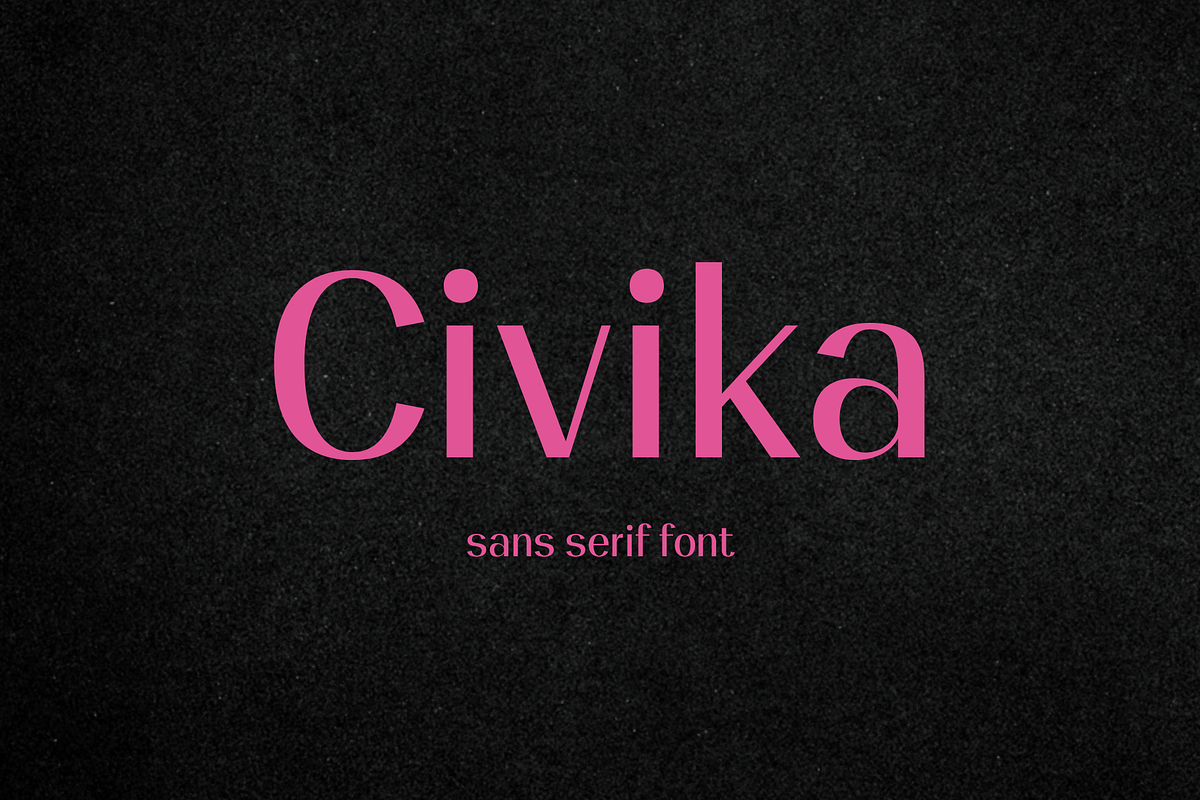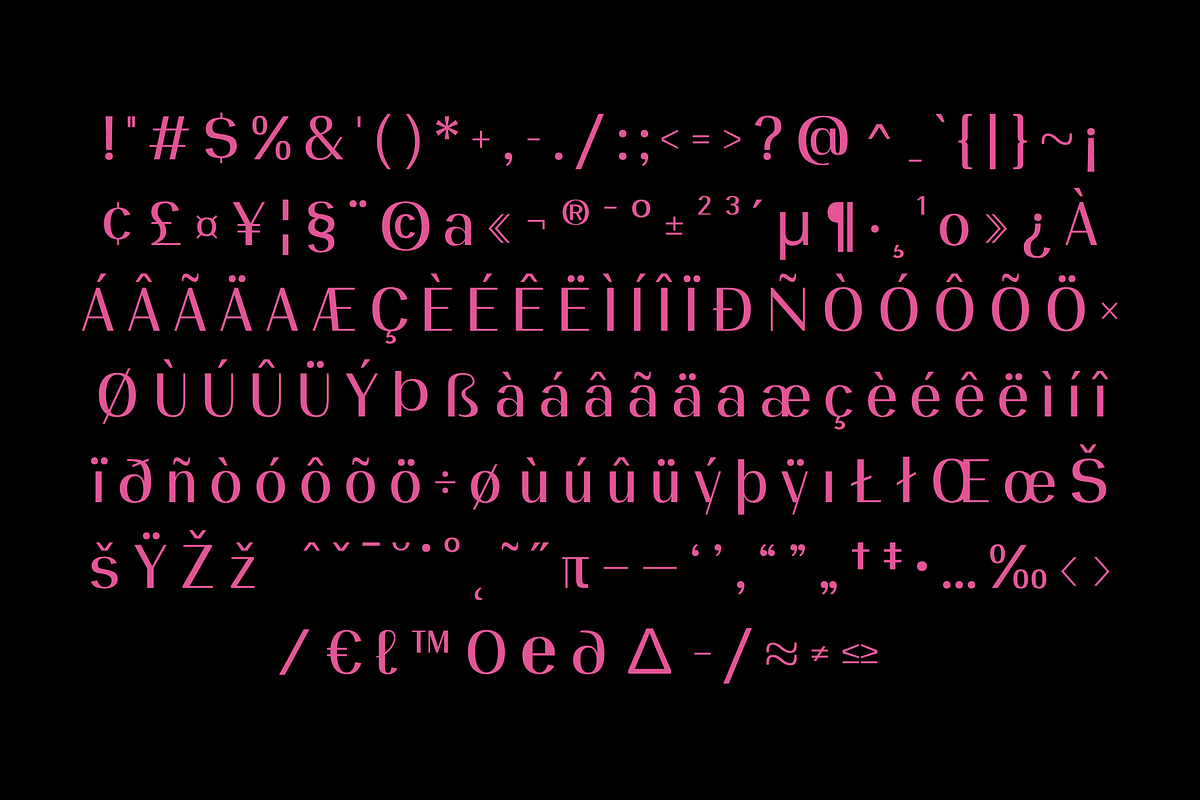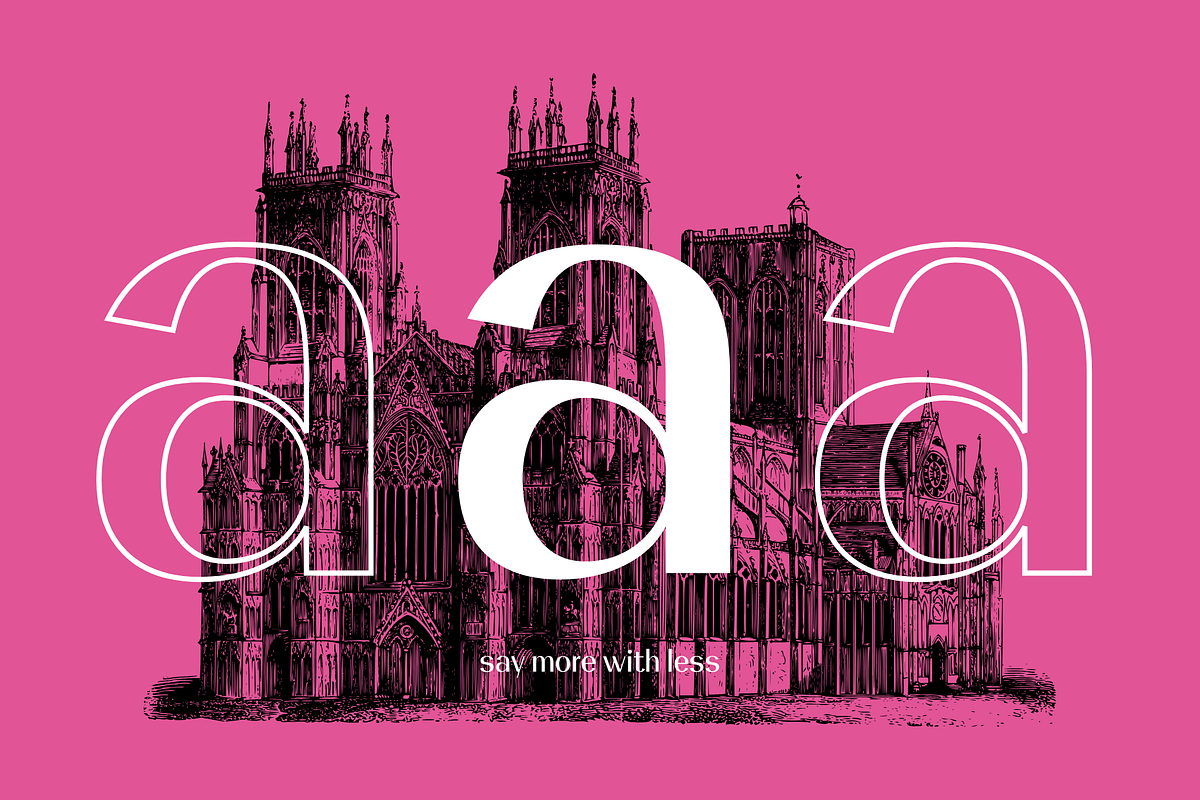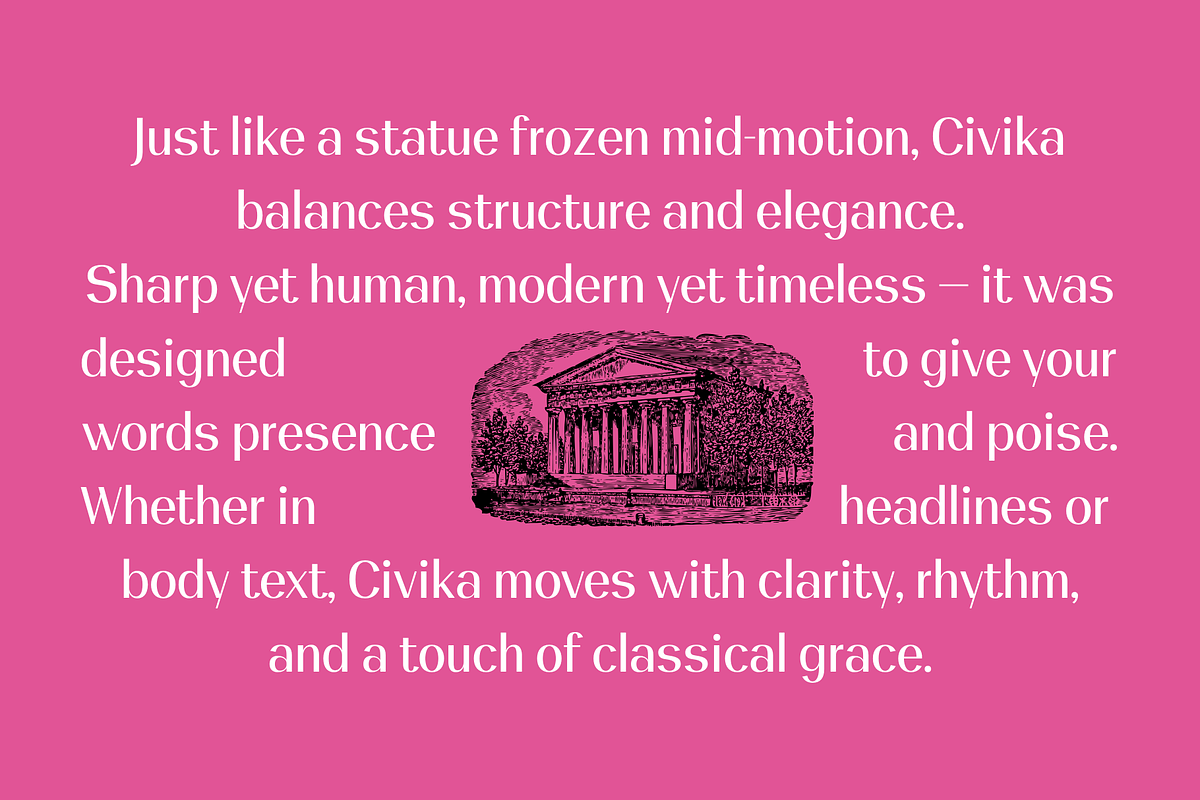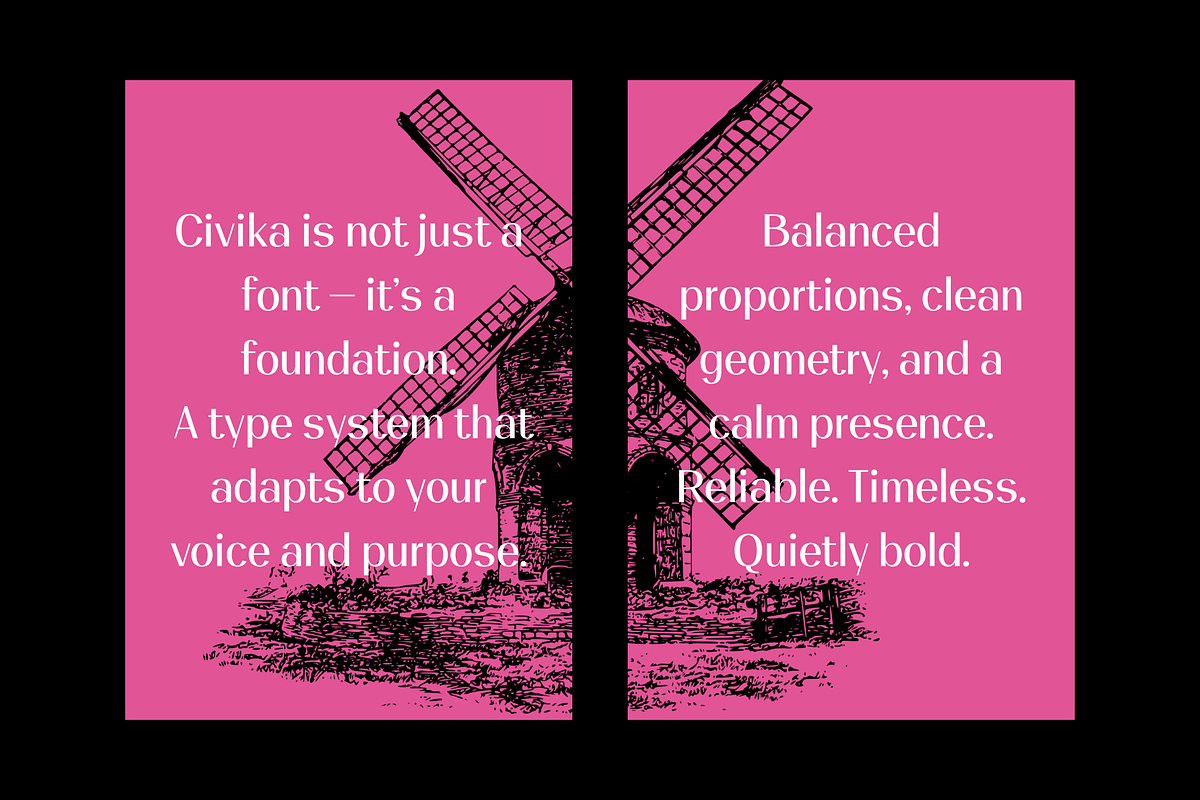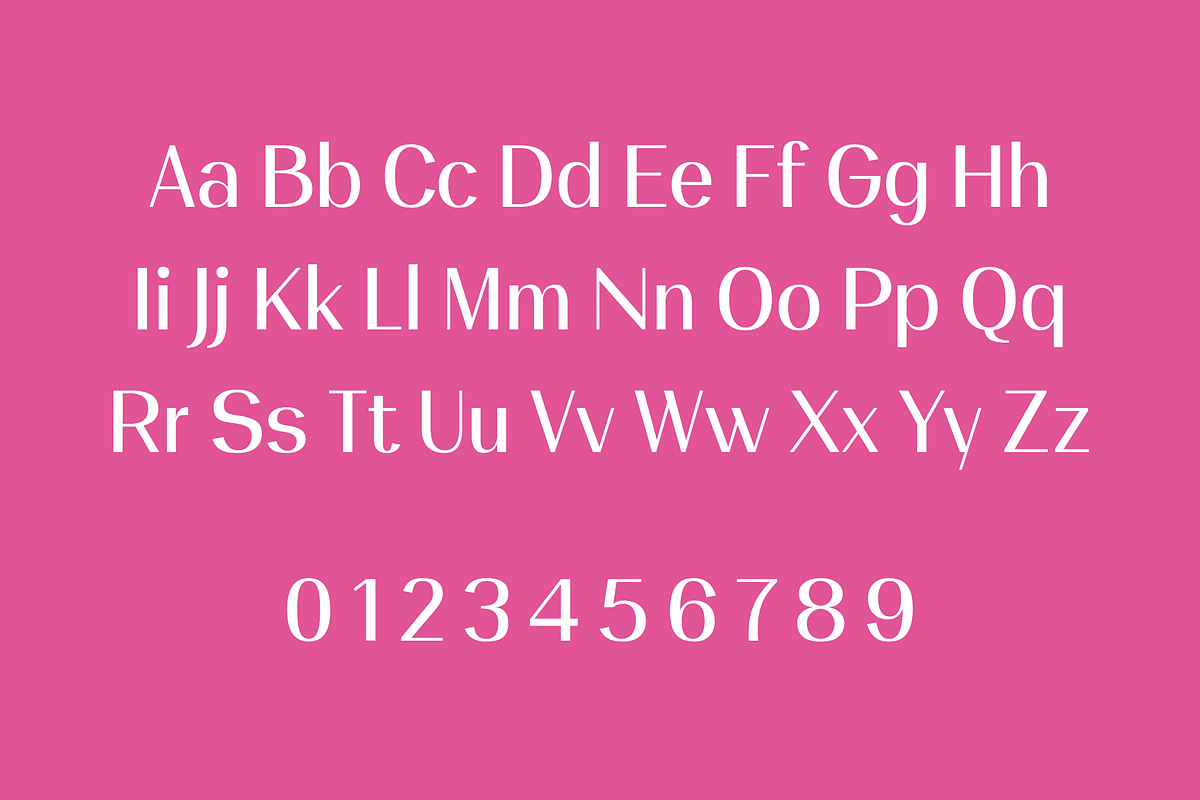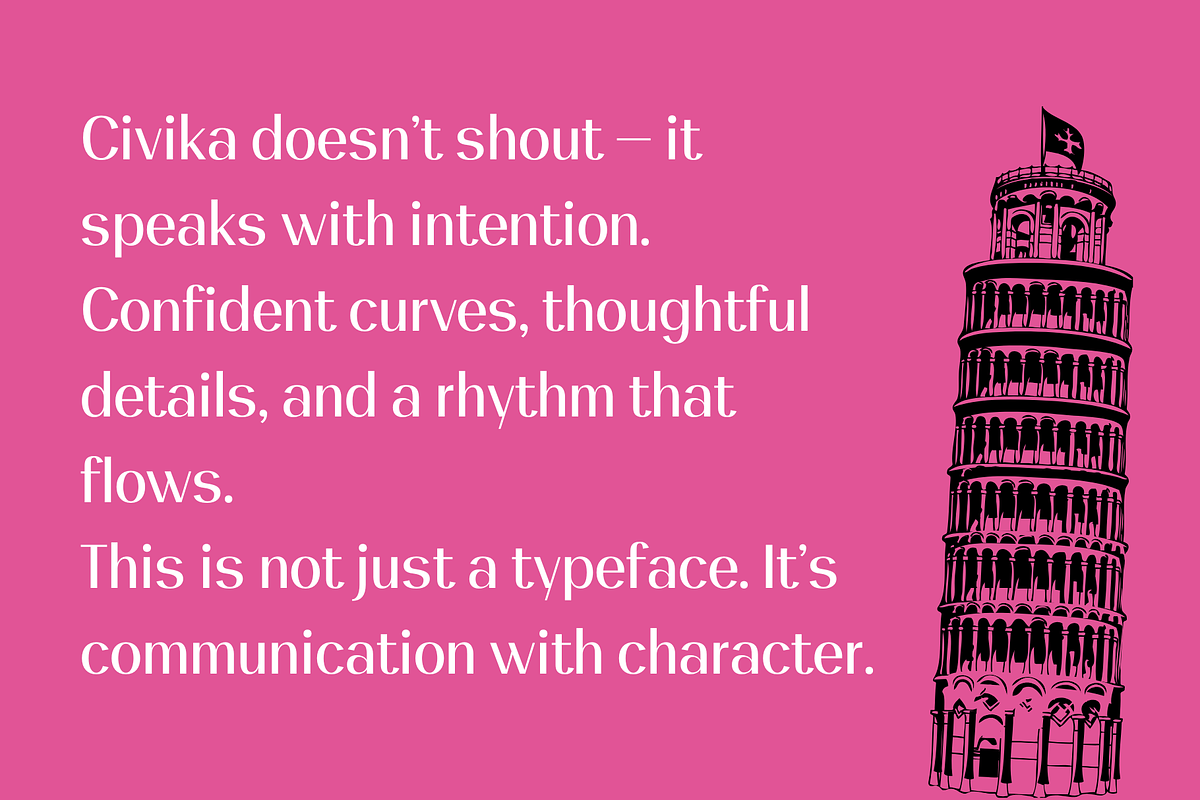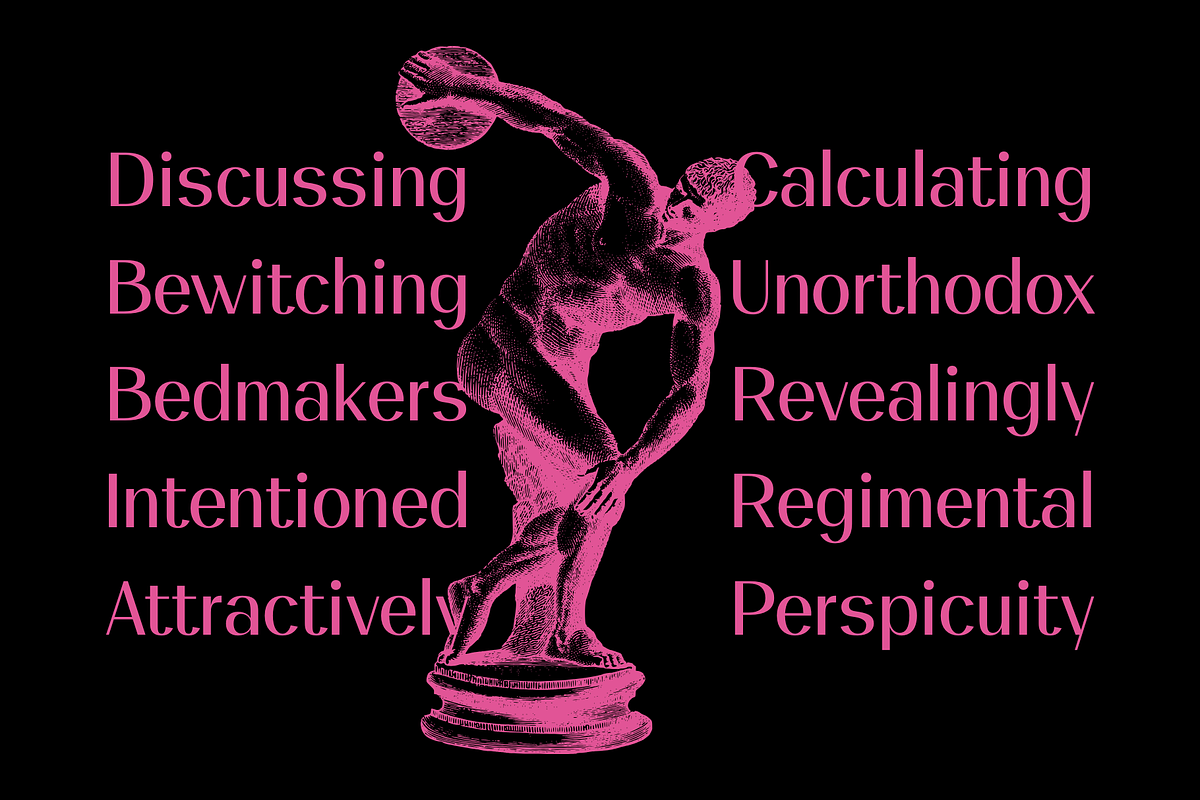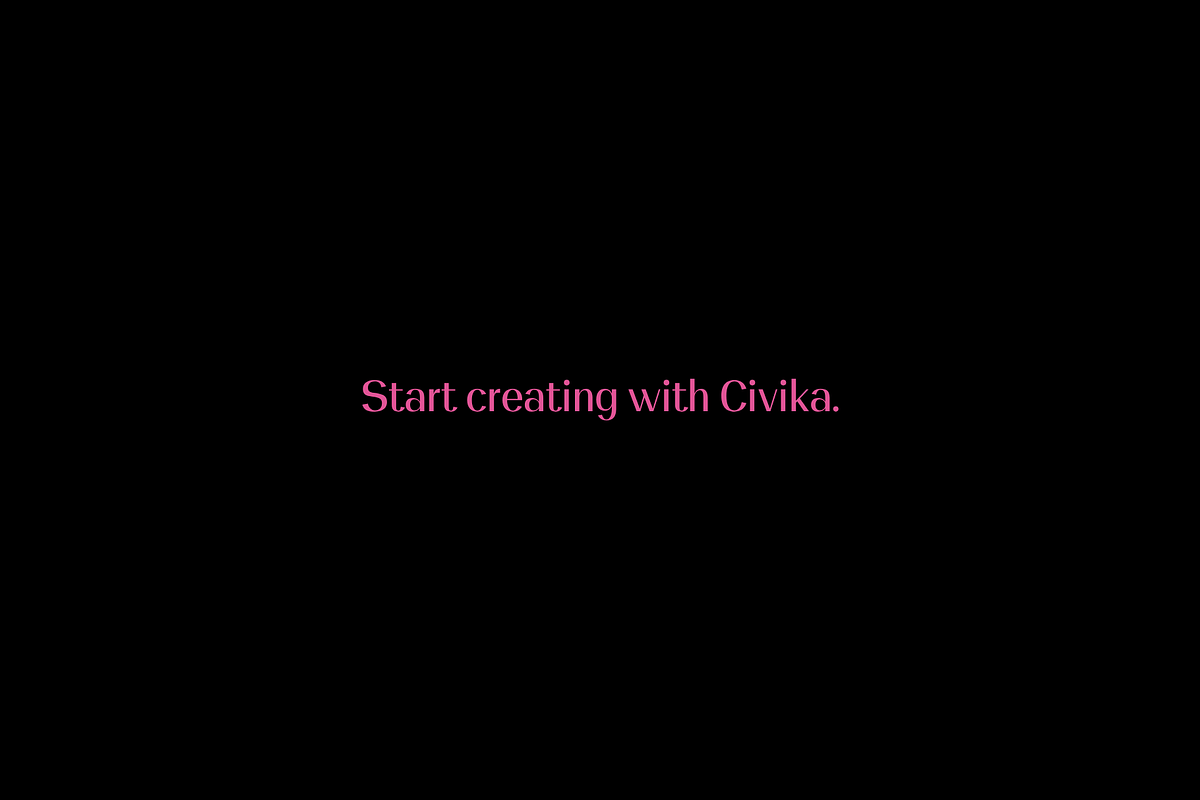
Civika
Civika blends modern structure with a calm, confident tone. Its smooth curves and balanced proportions give each letter a sense of quiet strength, while the clean sans serif construction ensures clarity at every size. With a medium contrast and subtle humanist touches, Civika carries both precision and warmth.